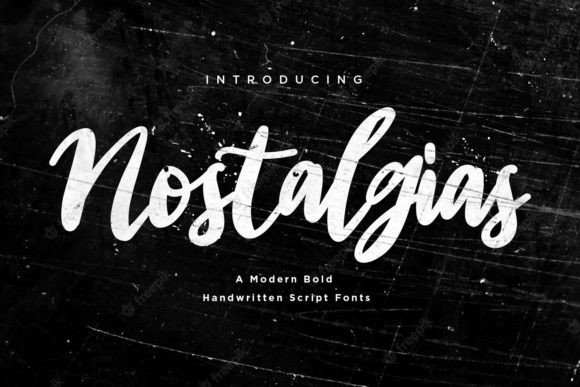
Welcome to the world of Nostalgias Font, a script font family crafted to let your creativity soar. This mesmerizing collection is like a whisper of the past, a tribute to the art of handwritten scripts. Dive into the boundless possibilities that await, as you unleash your imagination and transform your projects into works of art.
With Nostalgias Font, you can:
* Paint the canvas of a brand with a distinctive visual identity.
* Design promotional ads that captivate audiences and leave a lasting impression.
* Create quote designs that resonate with emotion, adding depth and charm to your words.
* Add a personal touch to merchandise, making each item a cherished keepsake.
* Elevate your social media presence with captivating visuals that stand out from the crowd.
This font family is designed for versatility, effortlessly adapting to a myriad of projects. Whether you're a designer seeking to enchant your clients or an entrepreneur looking to make a statement, Nostalgias Font is your perfect companion.
Immerse yourself in the beauty of Nostalgias Font and let your creativity flow freely. Let each stroke of the pen become a testament to your unique style, as you weave together words and images to create something truly extraordinary. Embrace the allure of handwritten elegance and embark on a creative journey like no other.